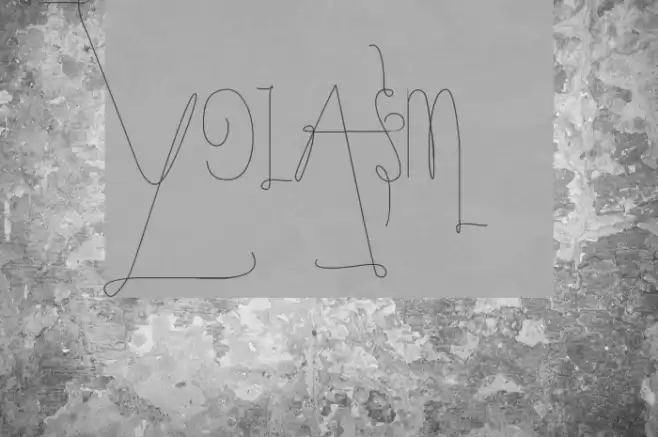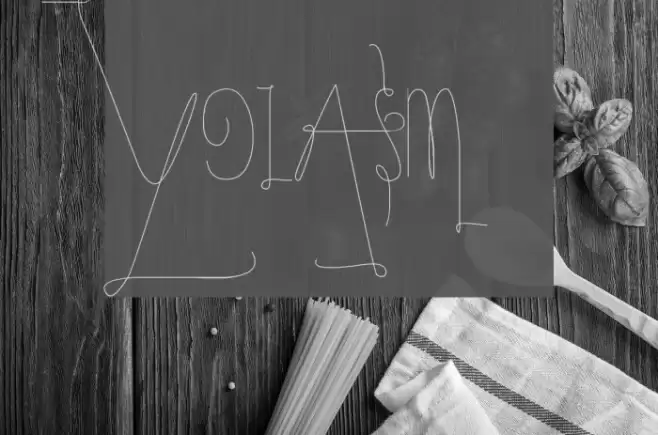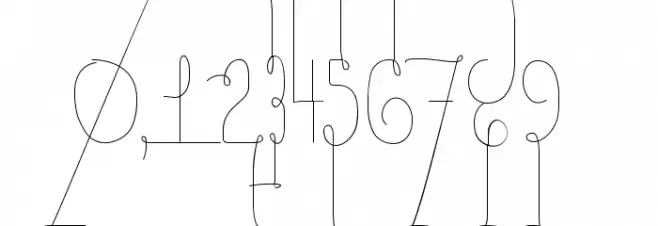
YolAsm Font
YolAsm Description
This font features a highly decorative and artistic style, characterized by its thin, elegant lines and unique looped elements. Each character is crafted with a sense of fluidity and motion, giving it a whimsical and airy appearance. The uppercase letters are tall and slender, while the lowercase letters maintain a consistent height, creating a harmonious balance. Numbers and special characters follow the same intricate design, making the font cohesive throughout. The overall aesthetic is both modern and artistic, suitable for creative and expressive projects.
A decorative, artistic font with thin lines and looped elements from Uncategorized fonts.
- Proposed Projects: Ideal for artistic projects, invitations, posters, and branding that require a creative and unique touch.
- Weight: Light
- Overall Style: Modern, Artistic
- Use Case: Headlines, Artistic projects, Invitations